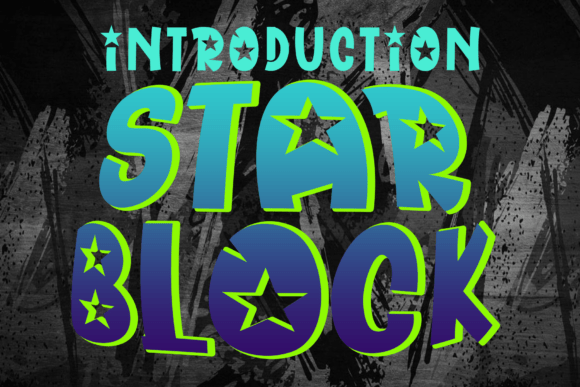
Star Block Font: The Ultimate Display Font for Creative Ideas
Are you looking for a font that can take your creative projects to the next level? Look no further than the Star Block font. This incredibly unique display font is masterfully designed to become a true favorite among designers, artists, and anyone looking to add a touch of elegance and sophistication to their work.
What Makes Star Block Font So Special?
Star Block font is a one-of-a-kind display font that boasts a range of features that set it apart from other fonts. Here are just a few of the things that make Star Block font so special:
- Unique Design: Star Block font features a unique block design that is both modern and elegant. The font’s block-like structure gives it a distinctive look that is sure to grab attention.
- Highly Versatile: Star Block font is incredibly versatile, making it perfect for a wide range of creative projects. Whether you’re designing a logo, creating a poster, or crafting a website, Star Block font is the perfect choice.
- Easy to Read: Despite its unique design, Star Block font is incredibly easy to read. The font’s clear and concise structure makes it perfect for use in both digital and print applications.
- Scalable: Star Block font is highly scalable, making it perfect for use in a wide range of applications. Whether you’re designing a billboard or a business card, Star Block font will look great.
How to Use Star Block Font
Star Block font is perfect for a wide range of creative projects. Here are just a few ideas to get you started:
- Logos: Star Block font is perfect for creating unique and memorable logos. The font’s block-like structure gives it a strong and sturdy look that is perfect for representing businesses and brands.
- Posters: Star Block font is a great choice for creating eye-catching posters. The font’s clear and concise structure makes it easy to read, even from a distance.
- Websites: Star Block font is a great choice for web designers looking to add a touch of elegance and sophistication to their websites. The font’s scalability and versatility make it perfect for use in a wide range of web applications.
- Social Media: Star Block font is also perfect for use on social media. The font’s unique design and clear structure make it perfect for creating eye-catching social media posts.
The Benefits of Using Star Block Font
There are many benefits to using Star Block font in your creative projects. Here are just a few of the advantages of choosing Star Block font:
- Instant Recognition: Star Block font is a unique and memorable font that is sure to grab attention. The font’s distinctive look makes it perfect for creating logos and branding materials that will be instantly recognizable.
- Professional Look: Star Block font has a professional and sophisticated look that is perfect for businesses and brands looking to establish a strong visual identity.
Tips for Using Star Block Font
Here are a few tips for using Star Block font in your creative projects:
- Use it Sparingly: Star Block font is a bold and eye-catching font that should be used sparingly. Use the font to create a strong visual impact, but avoid overusing it.
- Pair it with Other Fonts: Star Block font can be paired with other fonts to create a unique and visually appealing look. Try pairing the font with a sans-serif font for a modern and elegant look.
- Experiment with Colors: Star Block font can be used with a wide range of colors to create a unique and eye-catching look. Experiment with different colors to find the perfect look for your creative project.
- Pay Attention to Size: Star Block font can be used at a wide range of sizes, but it’s essential to pay attention to the font size to ensure that it looks great. Make sure to test the font at different sizes to find the perfect look for your project.
Star Block font is an incredibly unique and versatile display font that is perfect for creative projects. With its block-like structure, clear and concise design, and scalability, Star Block font is the perfect choice for designers, artists, and anyone looking to add a touch of elegance and sophistication to their work.
Whether you’re creating a logo, poster, website, or social media post, Star Block font is the perfect choice. With its instant recognition, professional look, and ease of use, Star Block font is sure to become a true favorite among designers and artists.